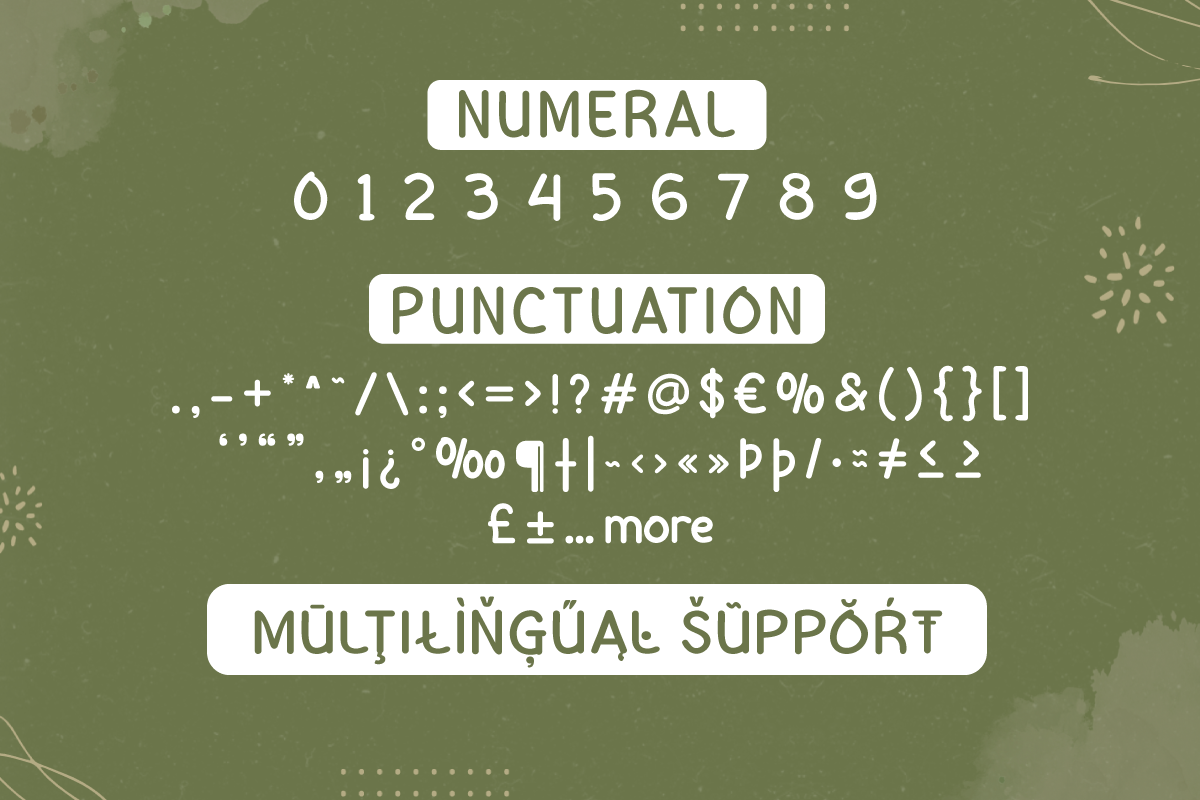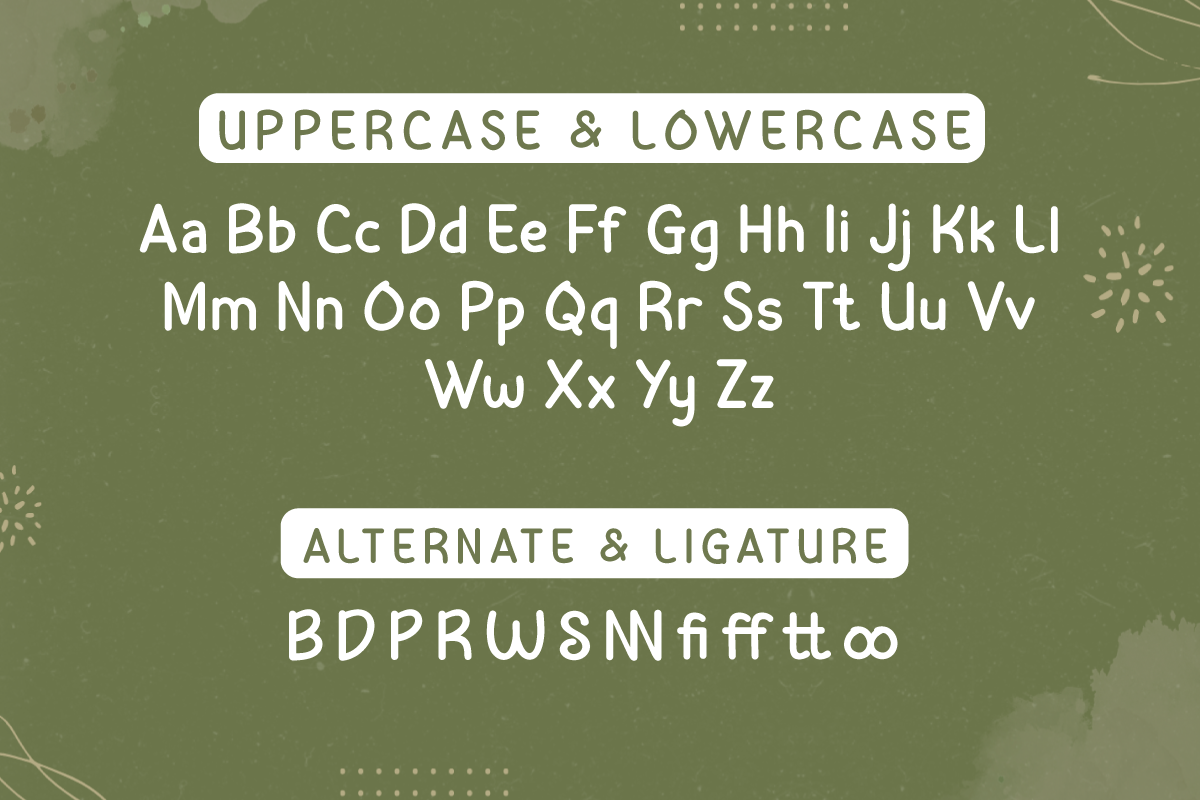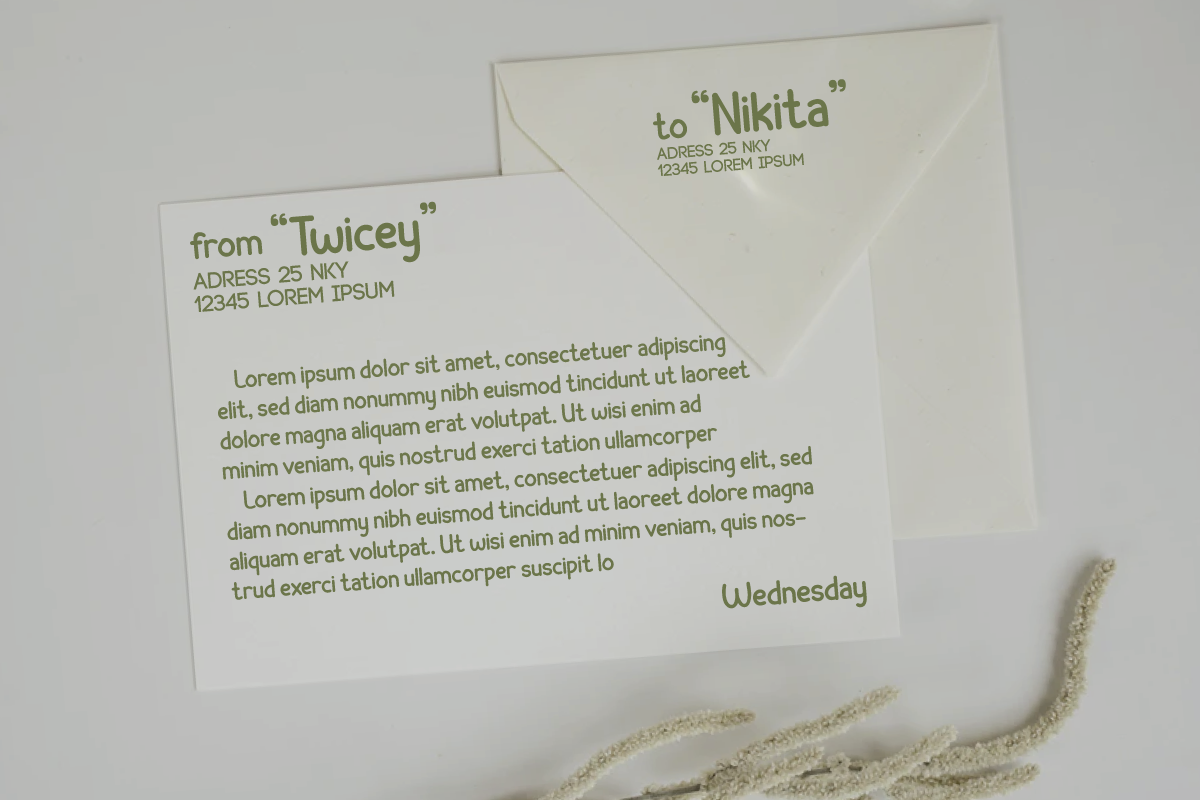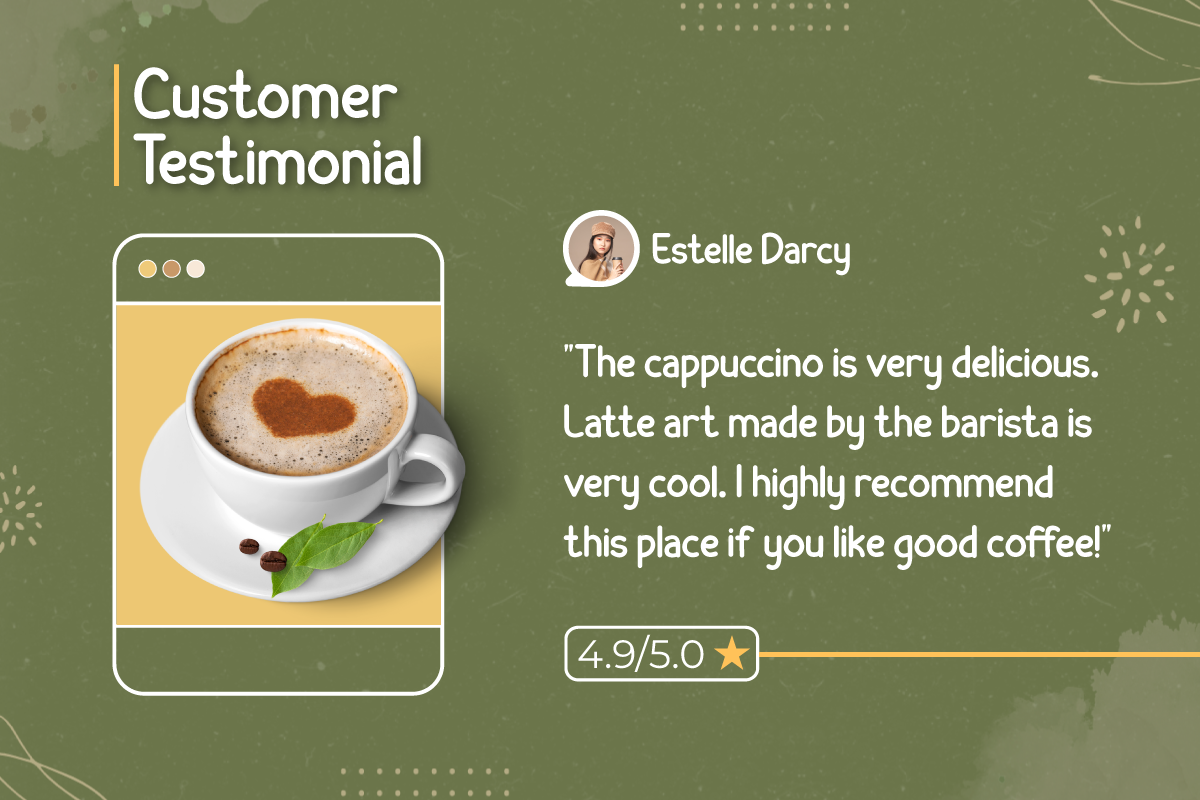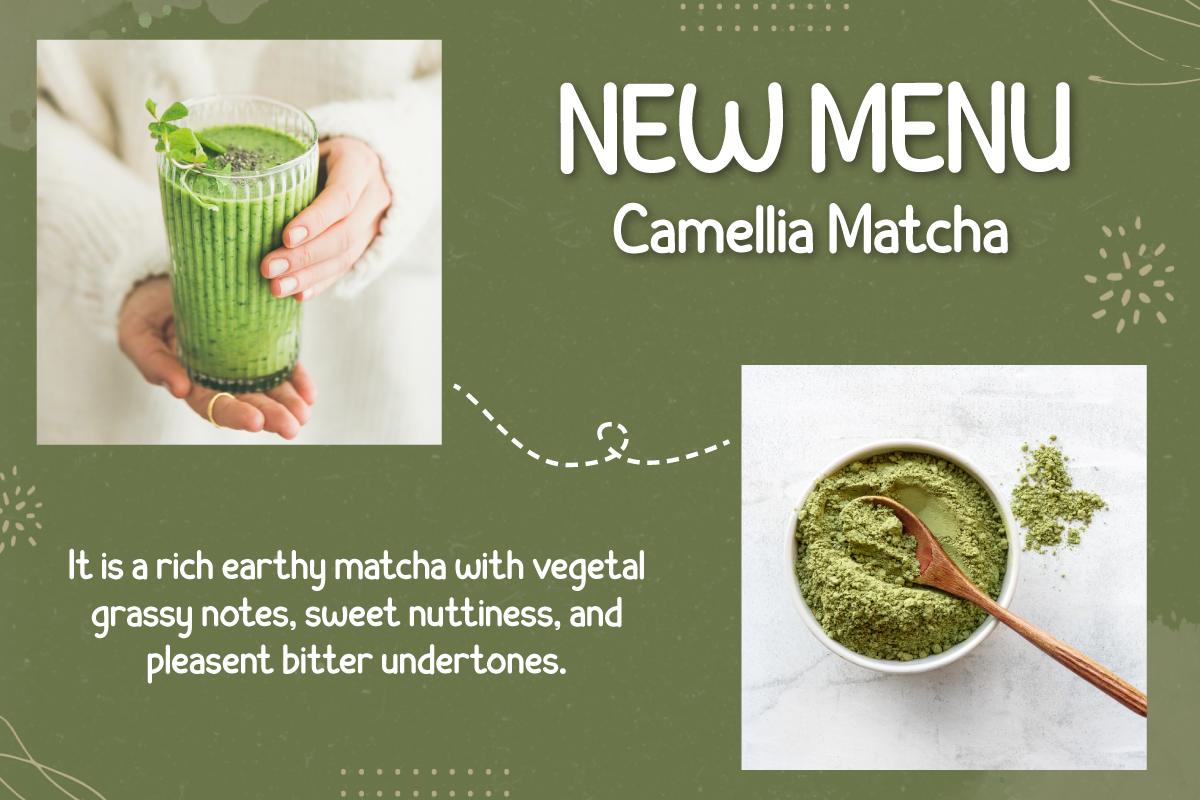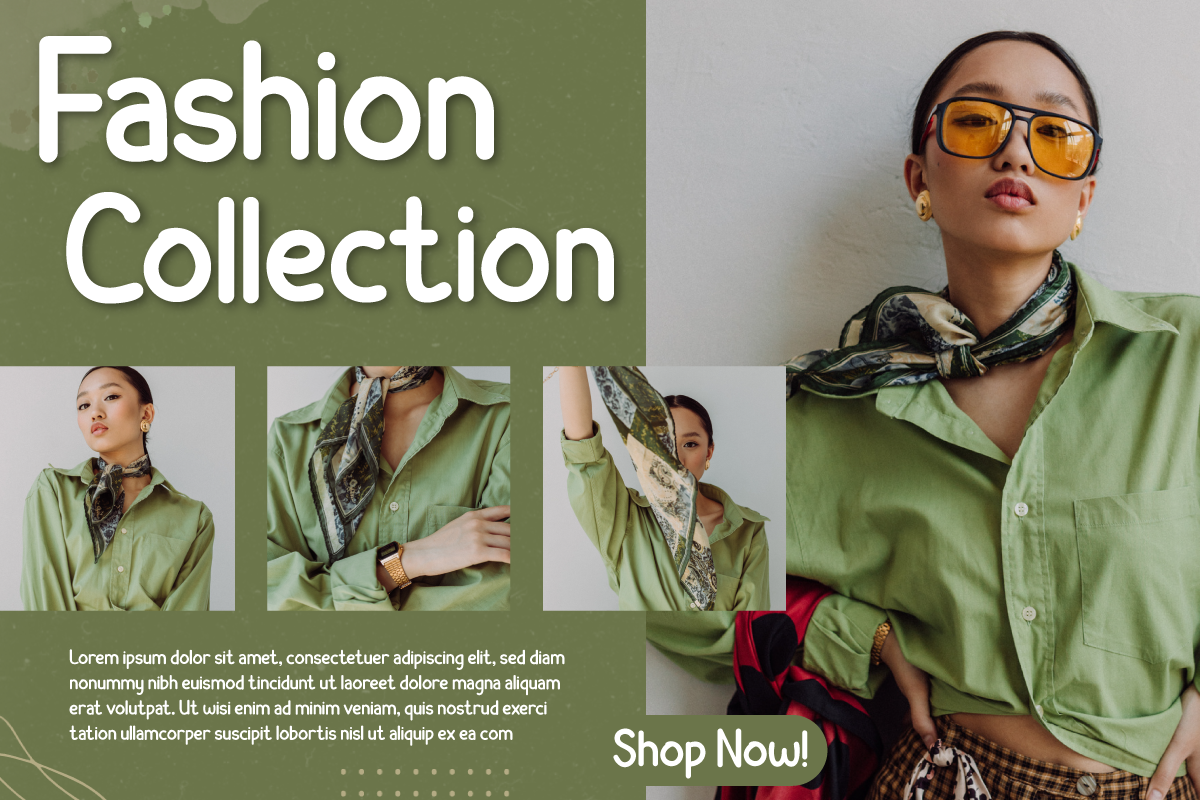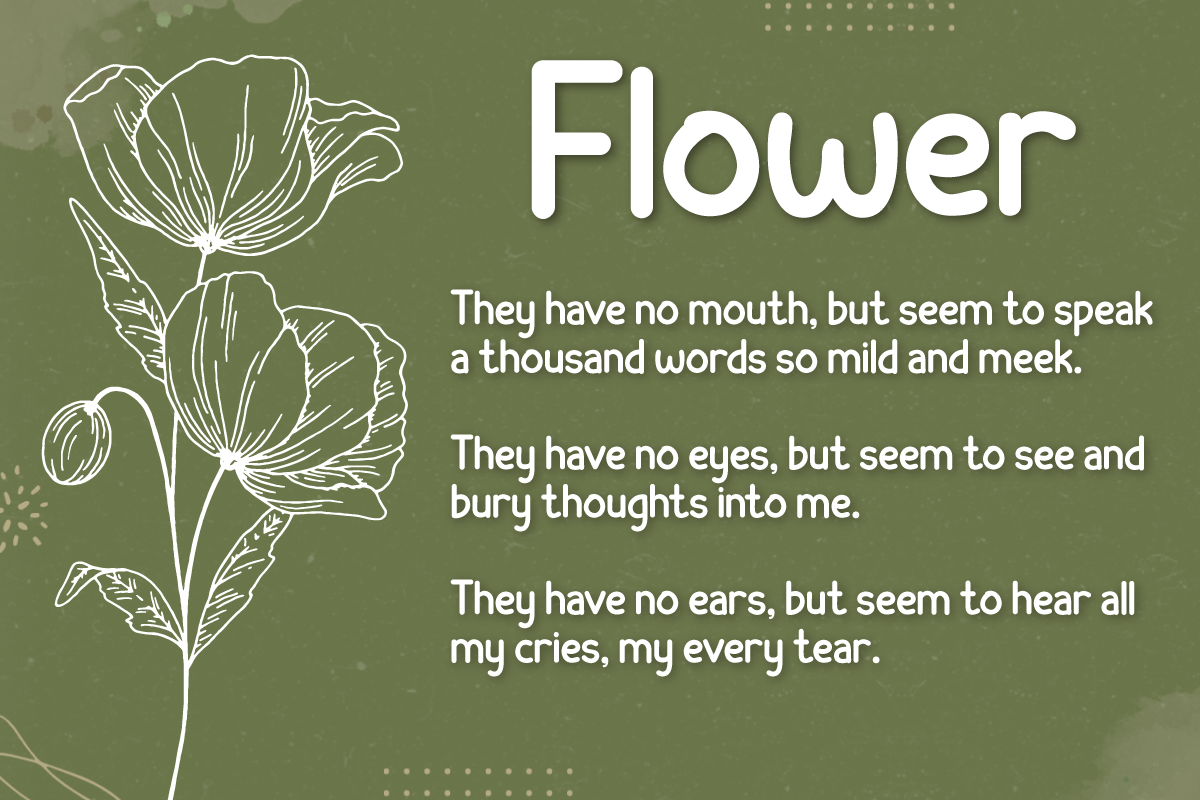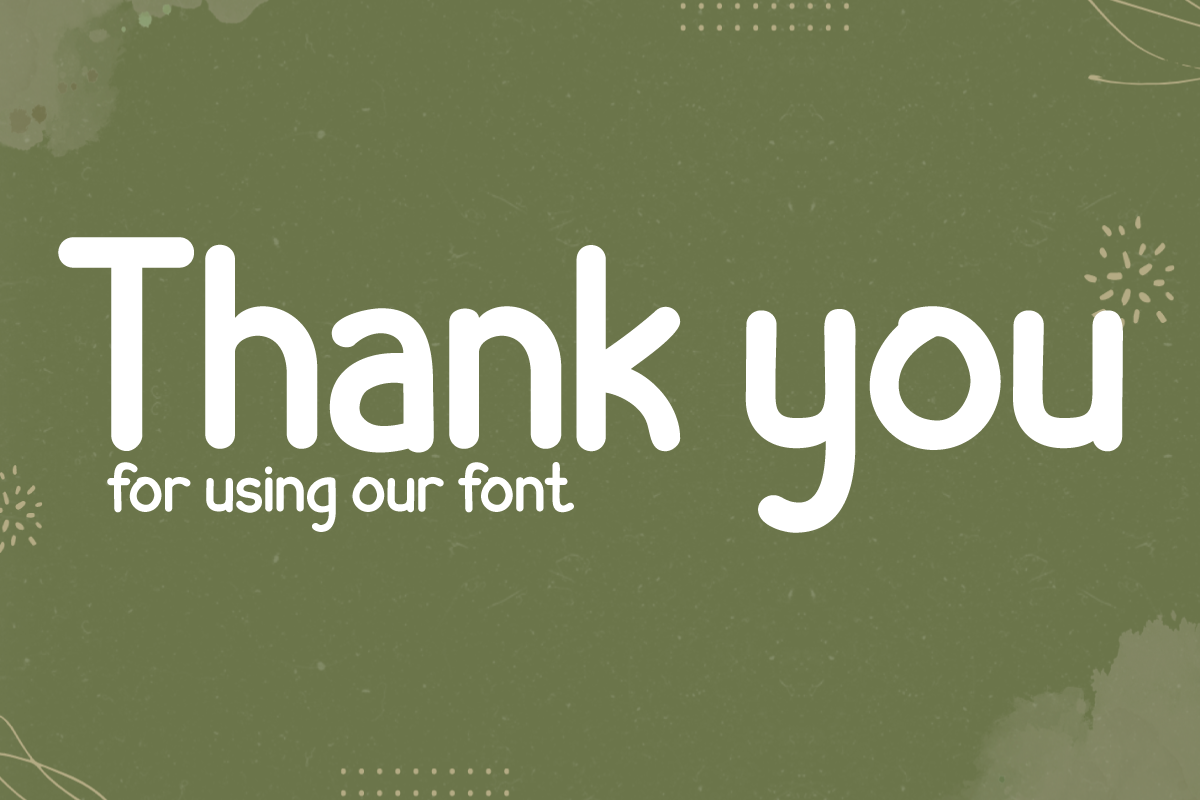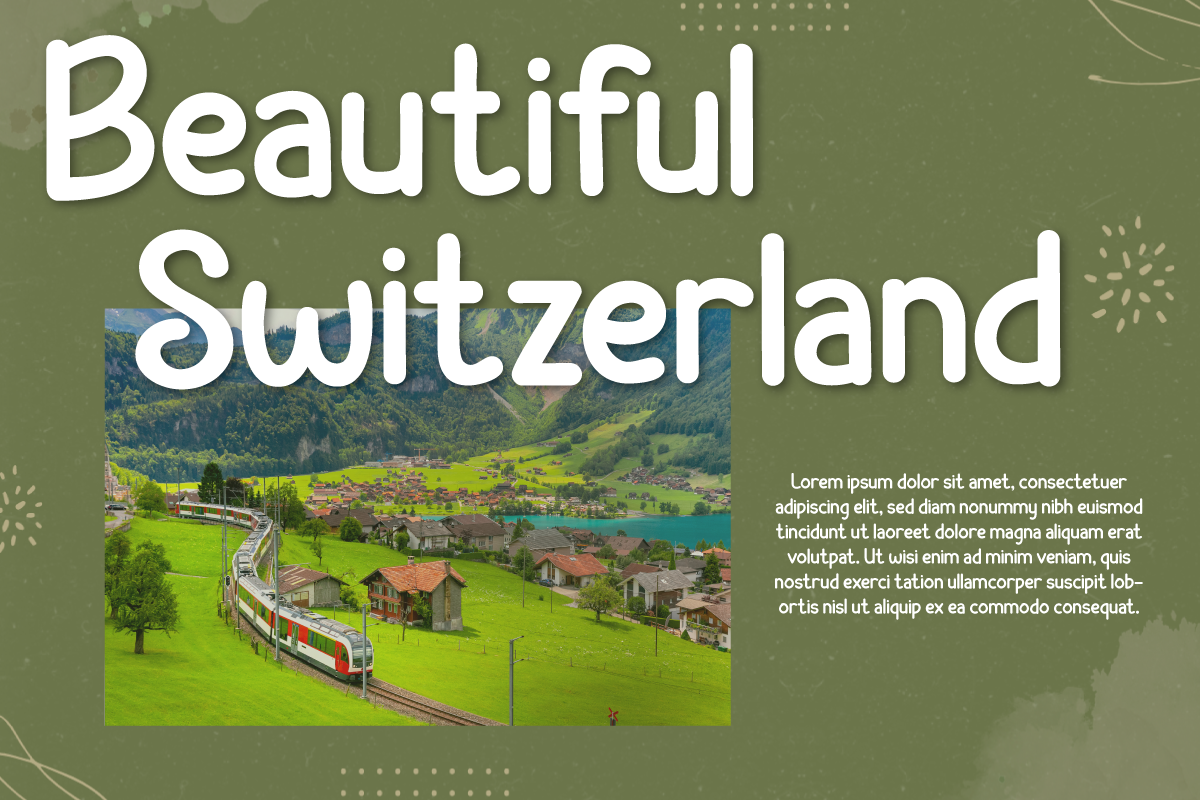
Cyhiru | Handwritten Display
Introducing "Cyhiru Font" - The Artistry of Handwriting Meets Contemporary Design.
Cyhiru Font is your gateway to infusing a personal and distinctive touch into your creative projects. This font seamlessly marries the warmth of handwritten text with a modern aesthetic, making it a perfect choice for invitations, posters, branding materials, and more. It effortlessly captures attention and leaves a memorable impression.
With meticulous craftsmanship, each character in Cyhiru Font mirrors the authenticity of genuine handwriting, creating an inviting and personal atmosphere in your designs.
Cyhiru Font's versatility knows no bounds, effortlessly adapting to a wide spectrum of design needs, from sophisticated wedding invitations to dynamic social media graphics.
Enhancing readability and flow, Cyhiru Font comes equipped with OpenType features, including ligatures and alternates. It also extends its support to multiple languages, ensuring accessibility to a global audience.
Unleash the expressive power of handwriting in your creative ventures with Cyhiru Font. Elevate your artistic endeavors and make an impact with this unique and adaptable typeface. Explore Cyhiru Font today and embark on a journey of limitless design possibilities.
- Alternate, Ligature